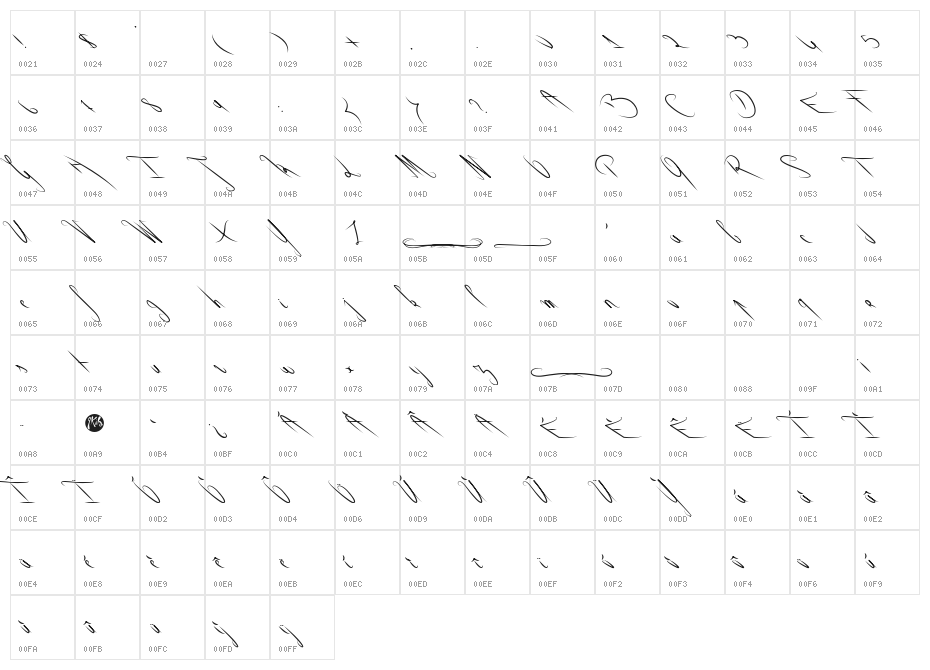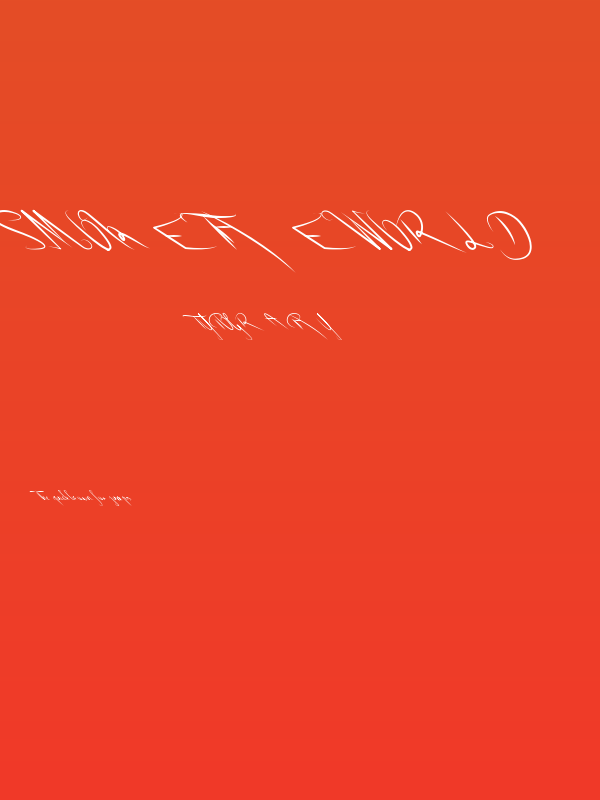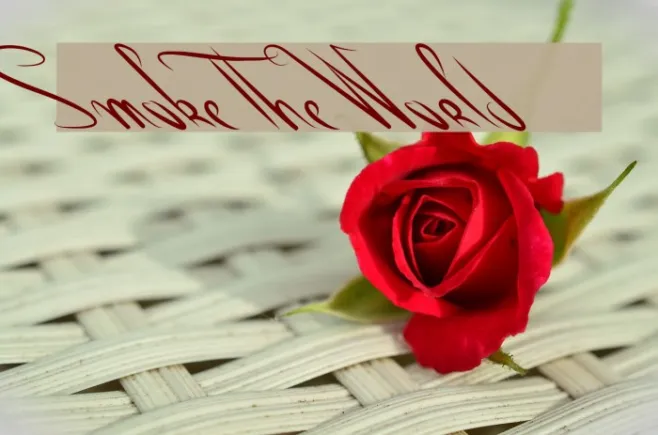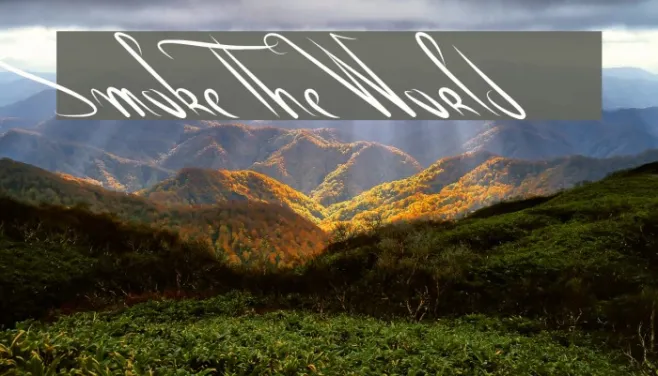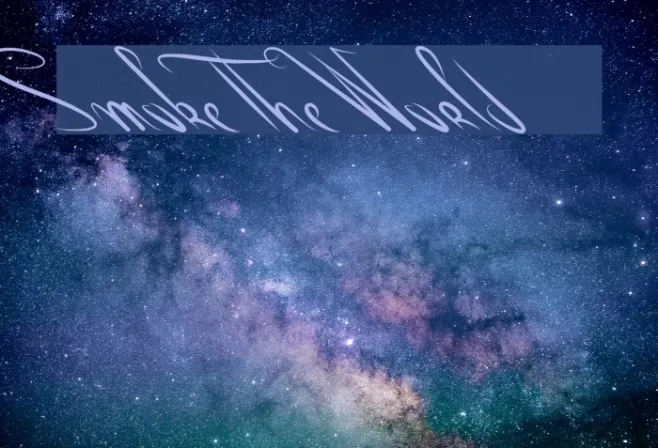
Smoke The World Font
Smoke The World Description
This font features a highly stylized and artistic script design, characterized by its fluid and dynamic strokes. The letters are connected in a cursive manner, with exaggerated loops and swirls that give it a whimsical and expressive appearance. The uppercase letters are bold and dramatic, while the lowercase letters maintain a consistent flow, enhancing the overall elegance of the typeface. The numbers and special characters follow the same artistic style, ensuring a cohesive look across all elements. This font is ideal for projects that require a touch of creativity and flair.
| Proposed Projects | Ideal for wedding invitations, artistic posters, branding, and creative design projects. |